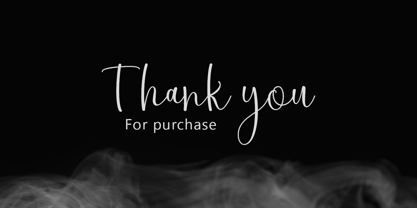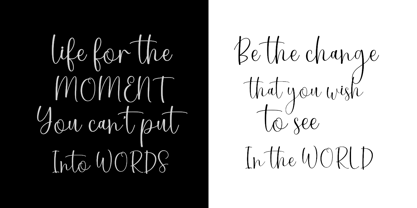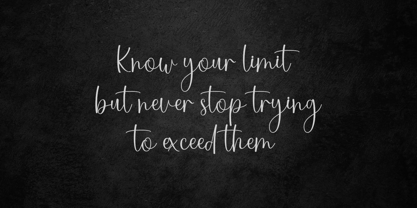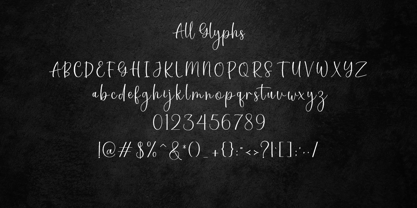
Kashira
by Amarlettering
The Kashira Font Family was designed by Kamaruddin and published by Amarlettering. Kashira contains 1 styles. More about this family
Kashira is a clean and natural handwritten script font with a casual, friendly, and modern feel. Created to look authentic and effortless, Kashira delivers smooth strokes and balanced letterforms that bring warmth and personality to any design. Perfect for branding, logos, quotes, social media, packaging, journals, and creative projects that need a relaxed yet stylish handwritten touch. Kashira works beautifully for both personal and commercial designs.